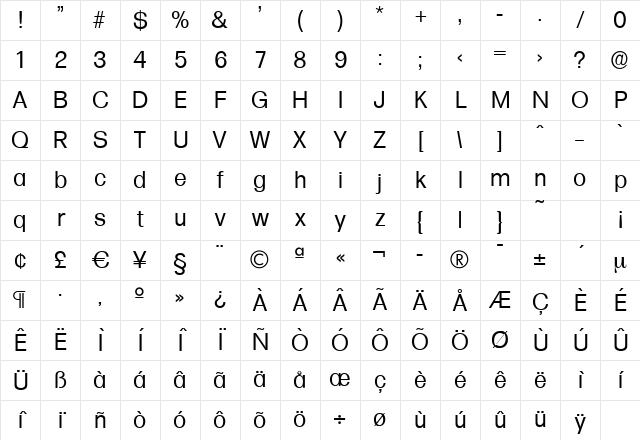
AdamBecker Regular
Complete AdamBecker Regular glyph index. Displaying only characters natively supported by AdamBecker Regular font.
AdamBecker is a composed and adaptable typeface that performs quietly and consistently across a wide range of design contexts.